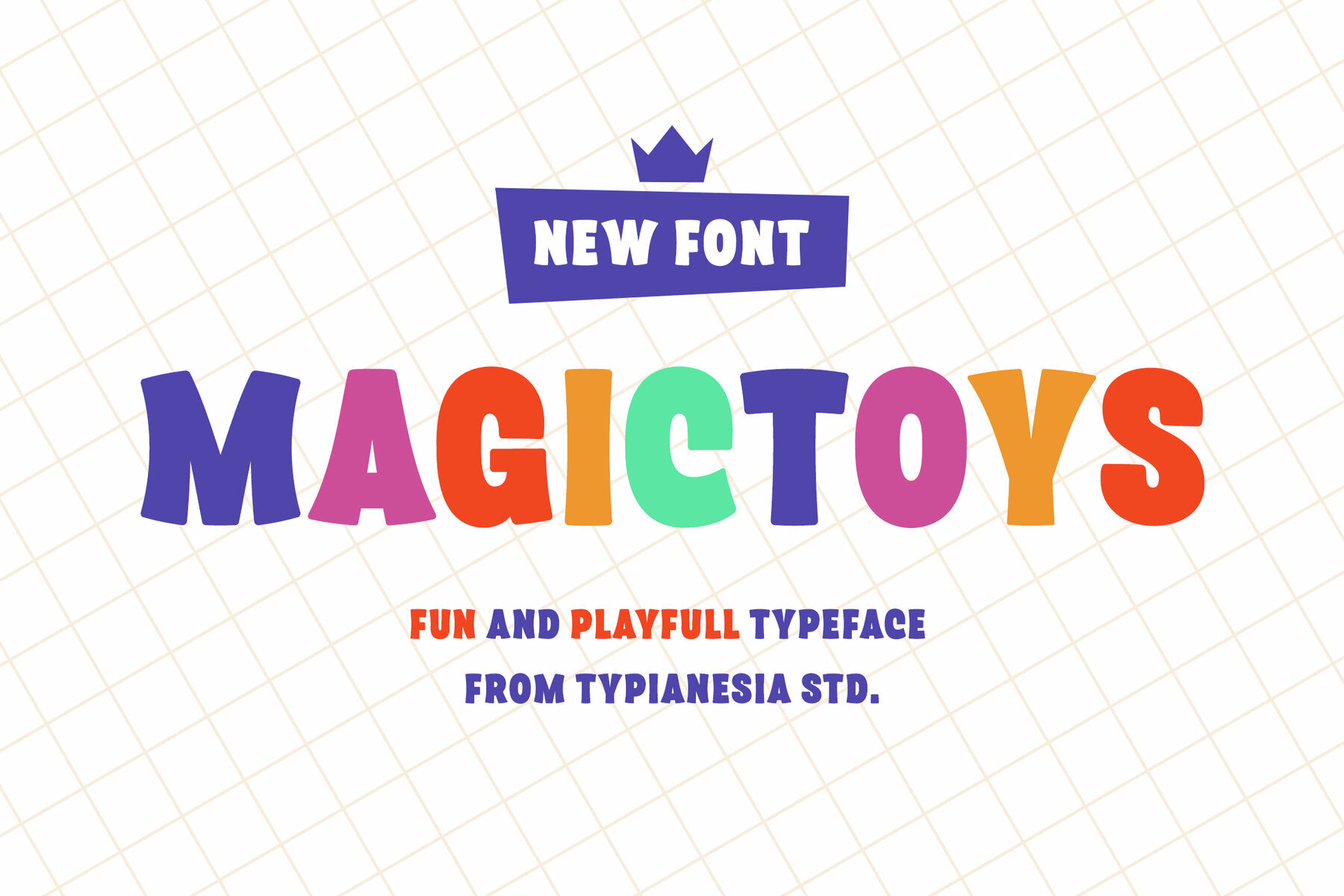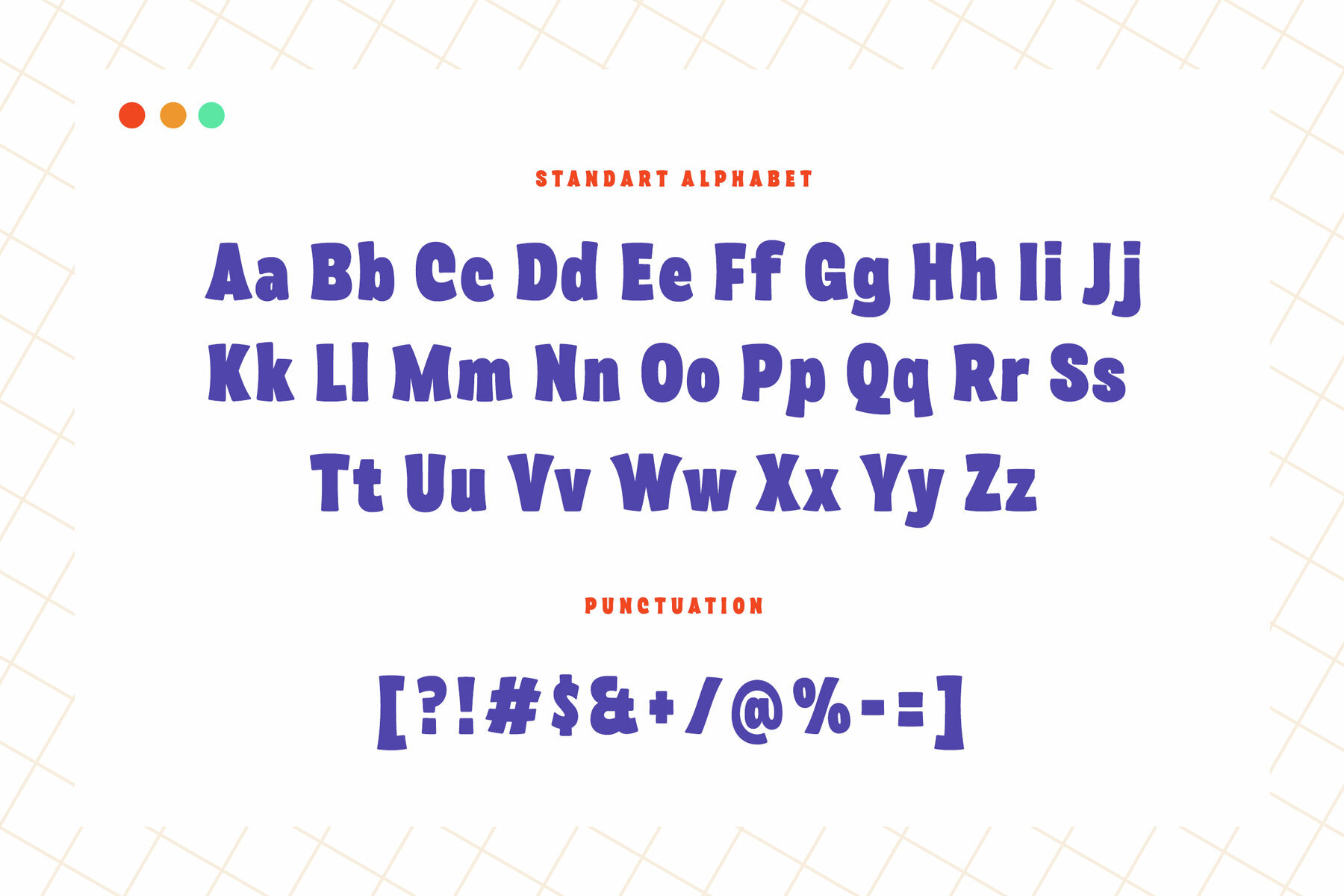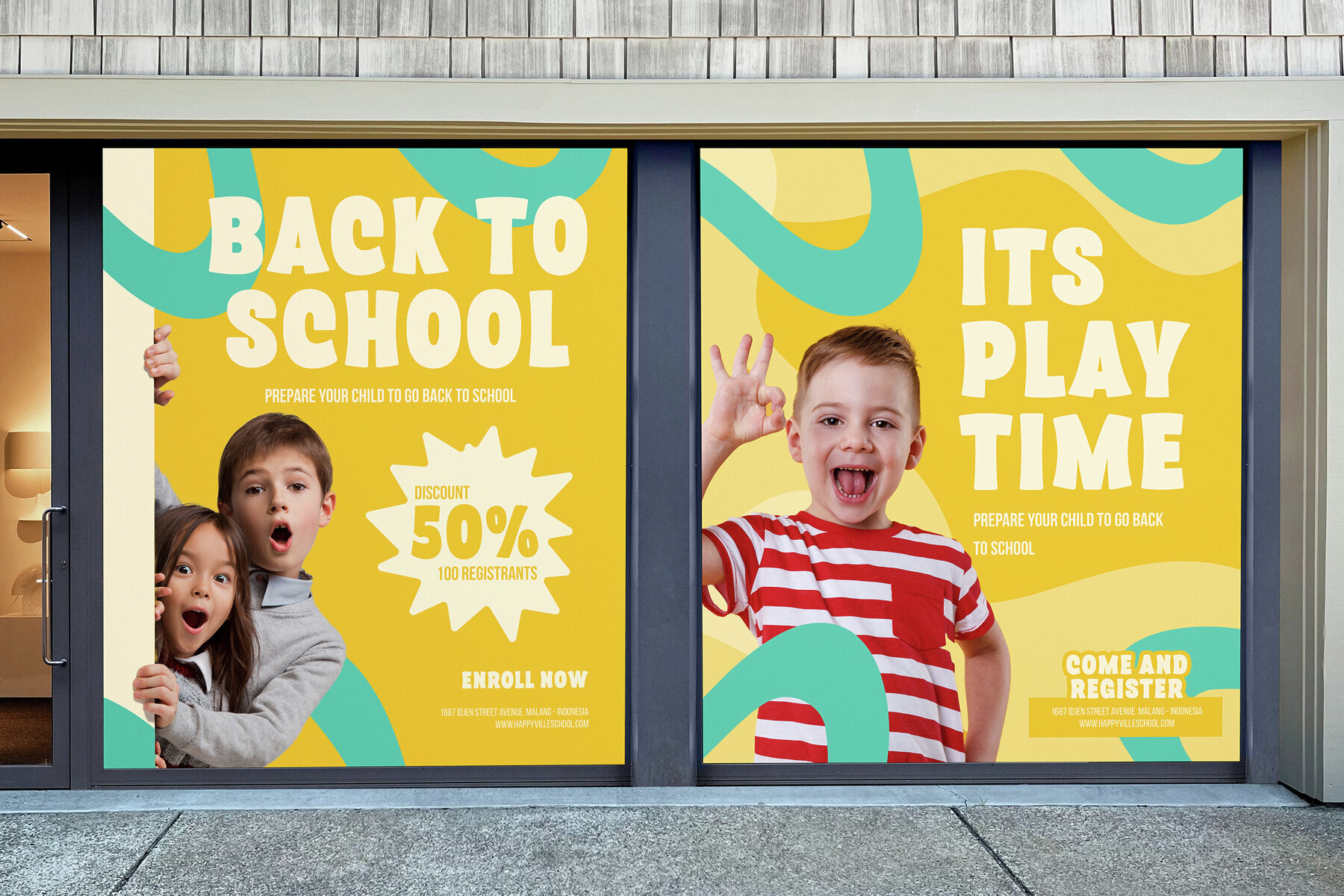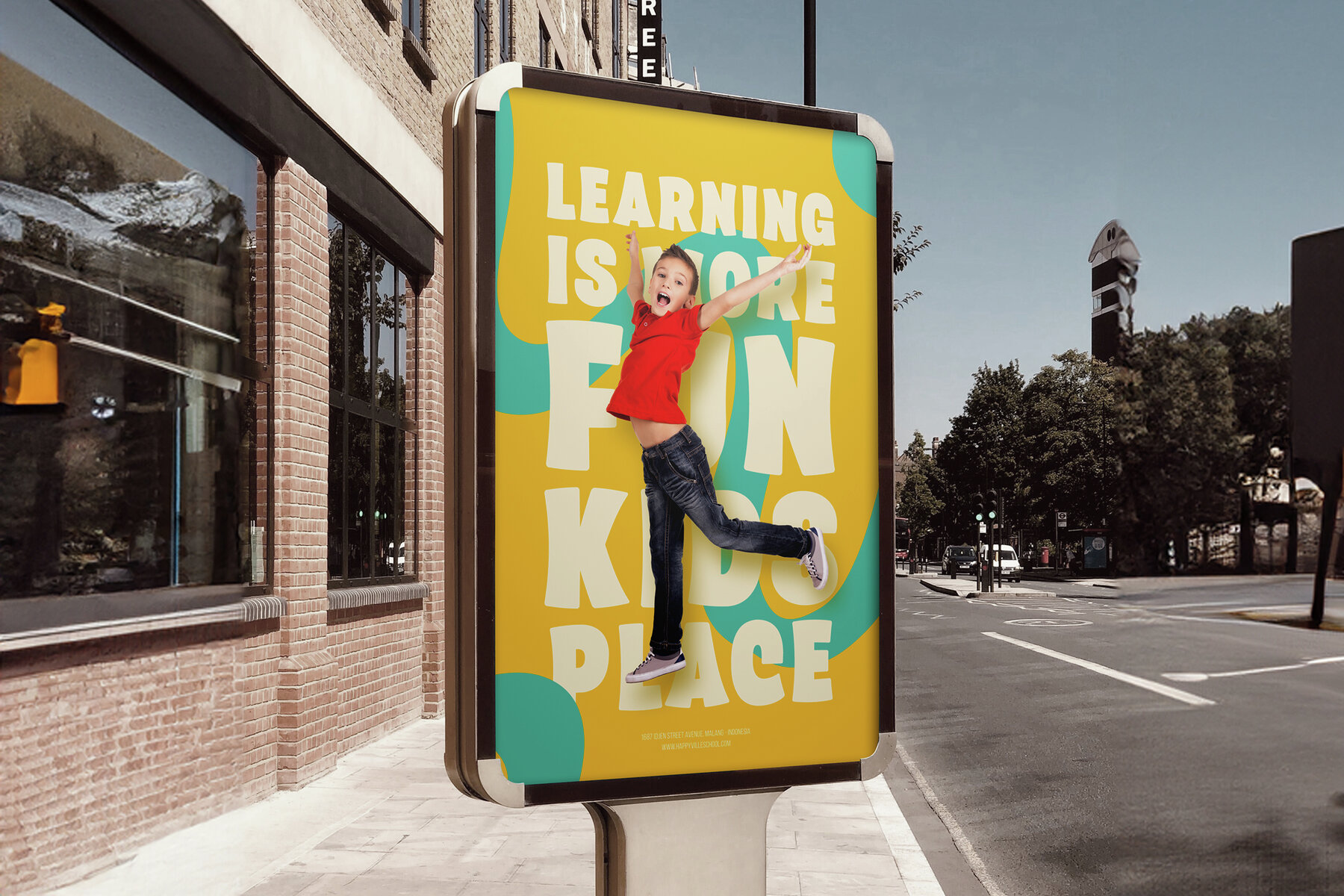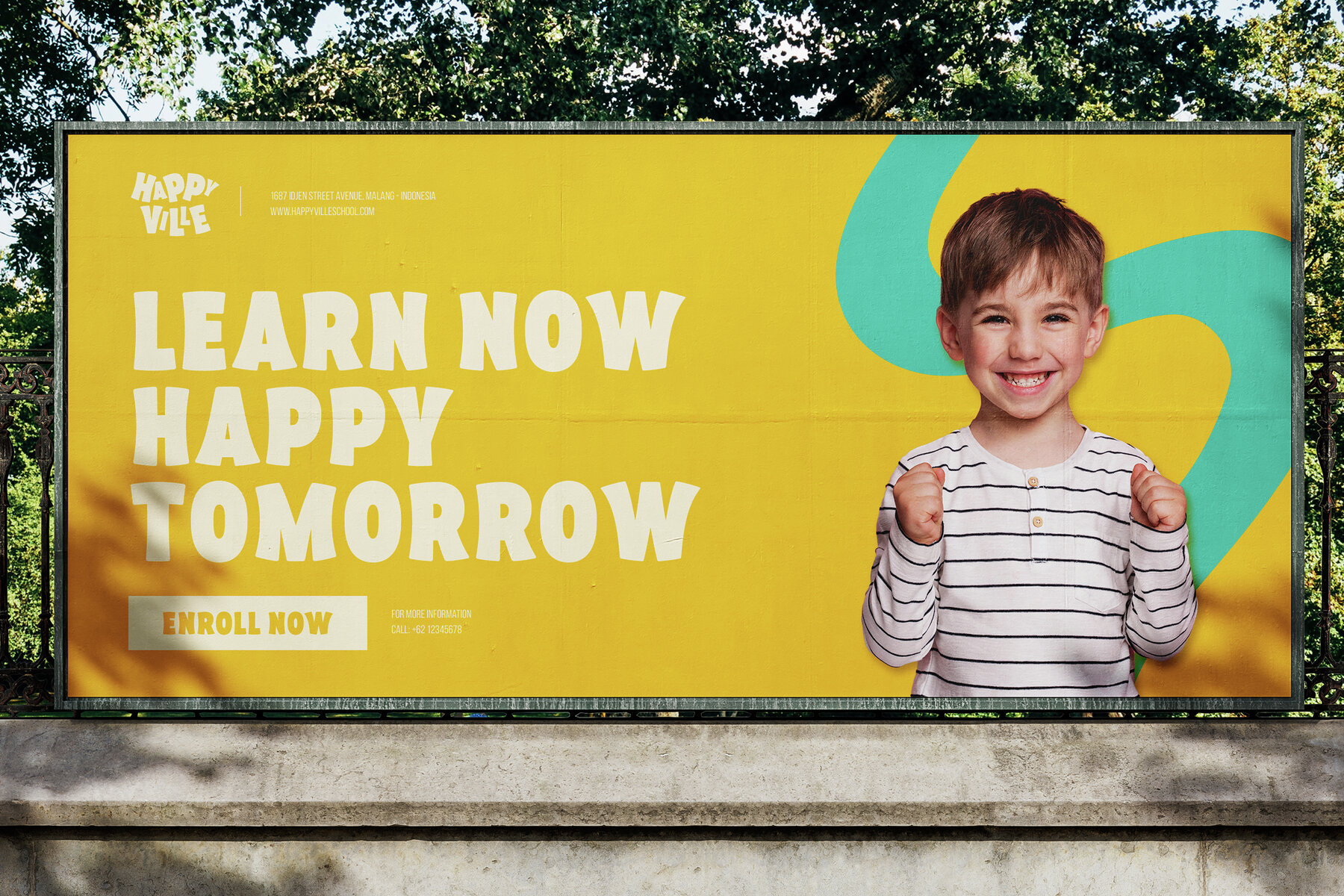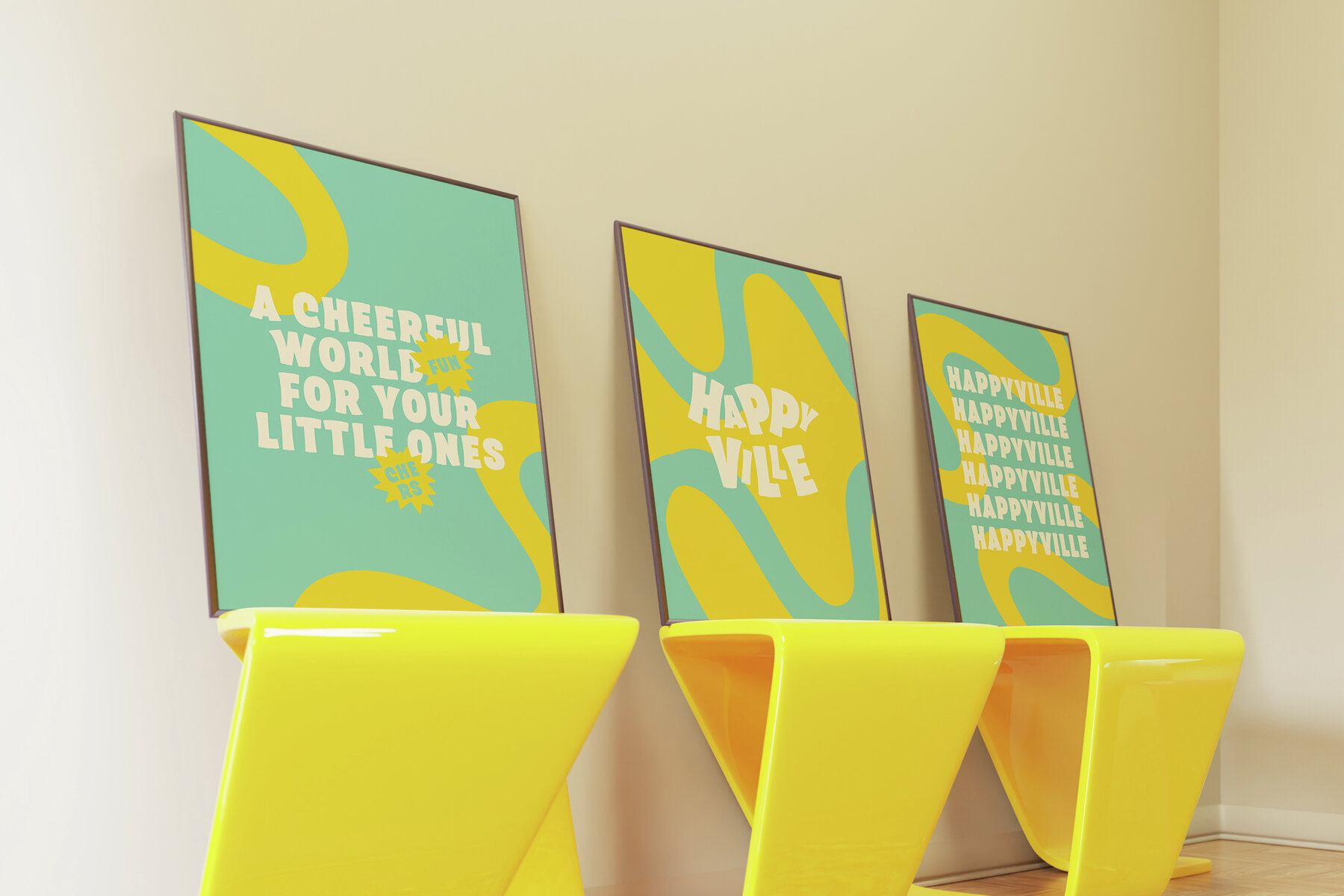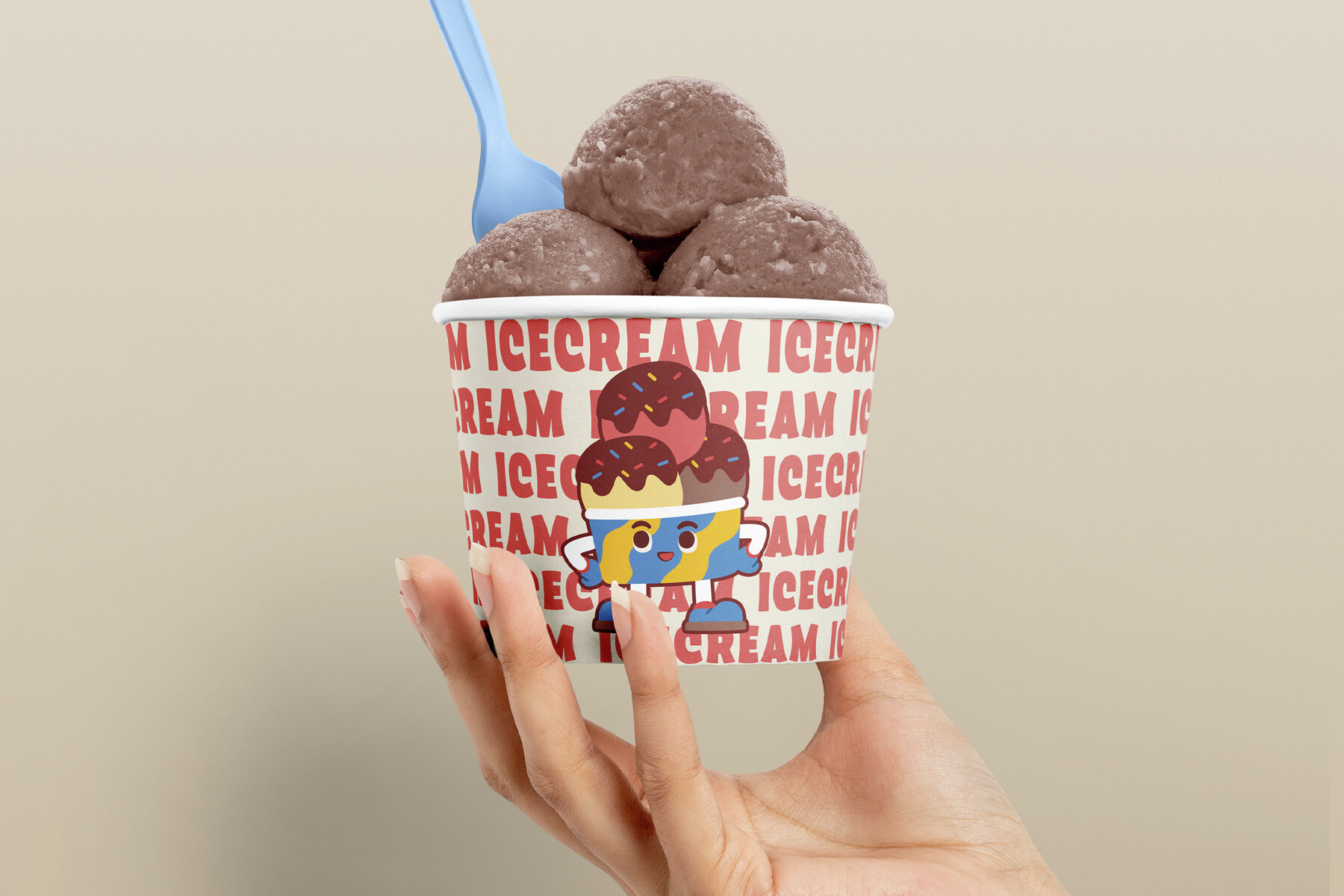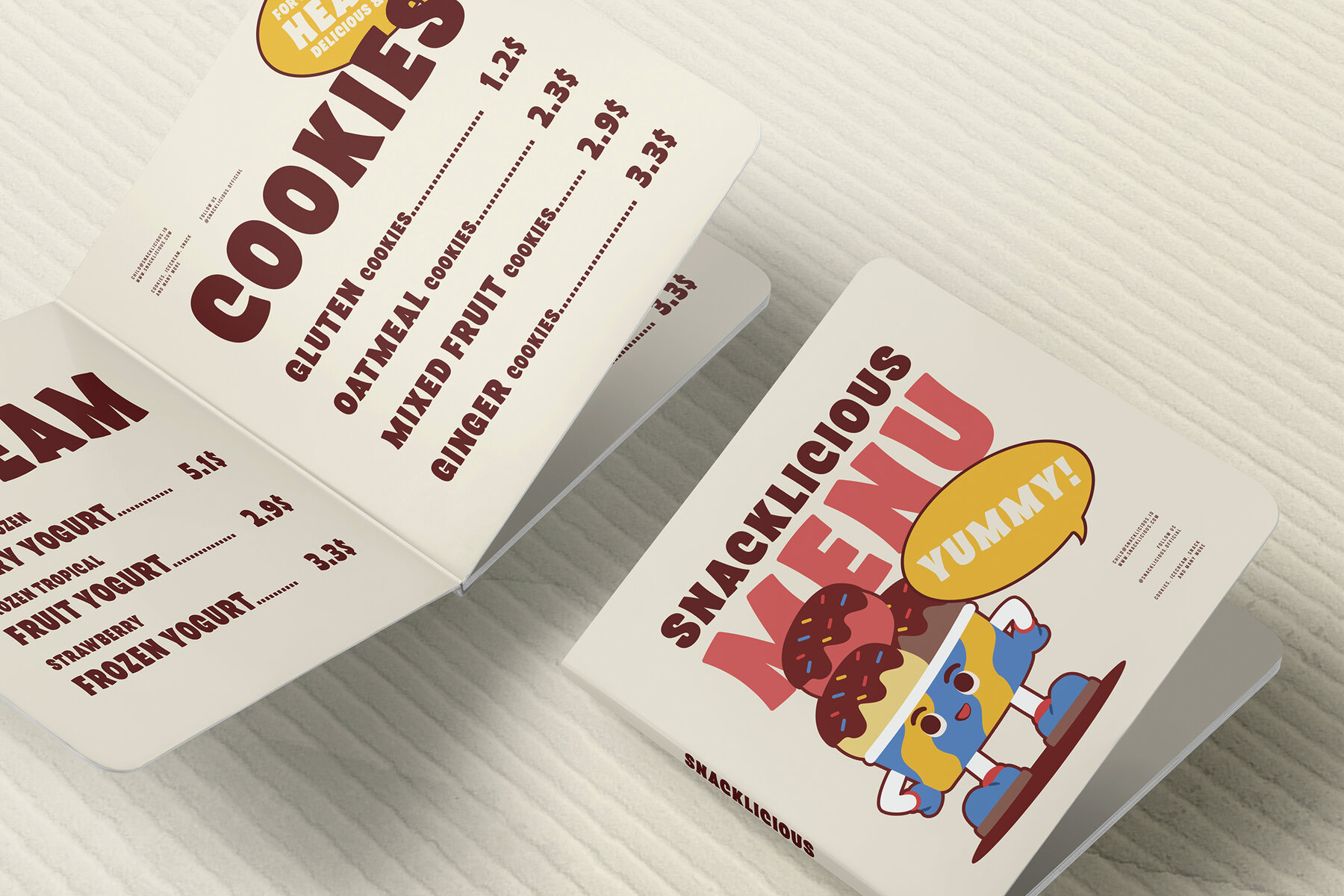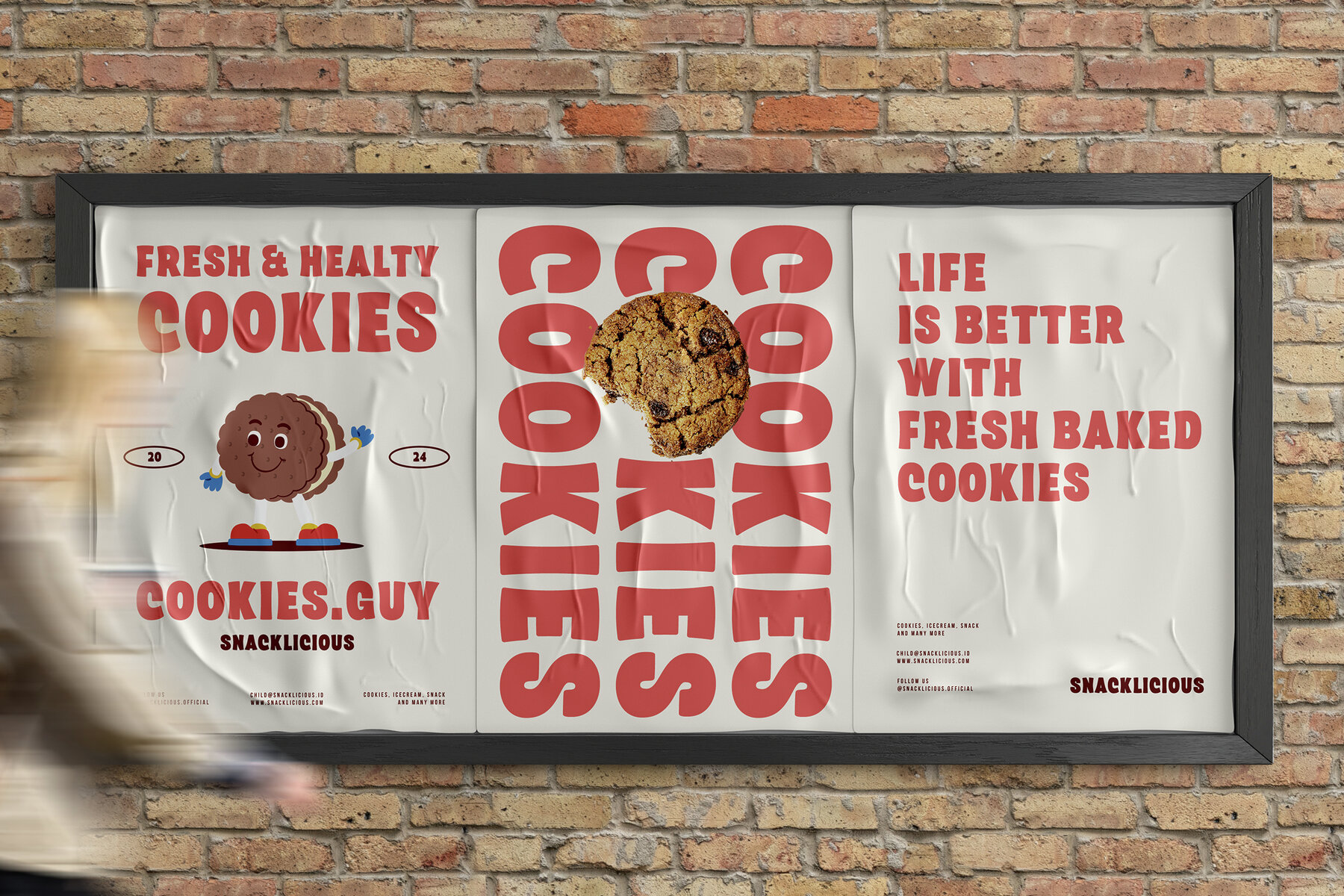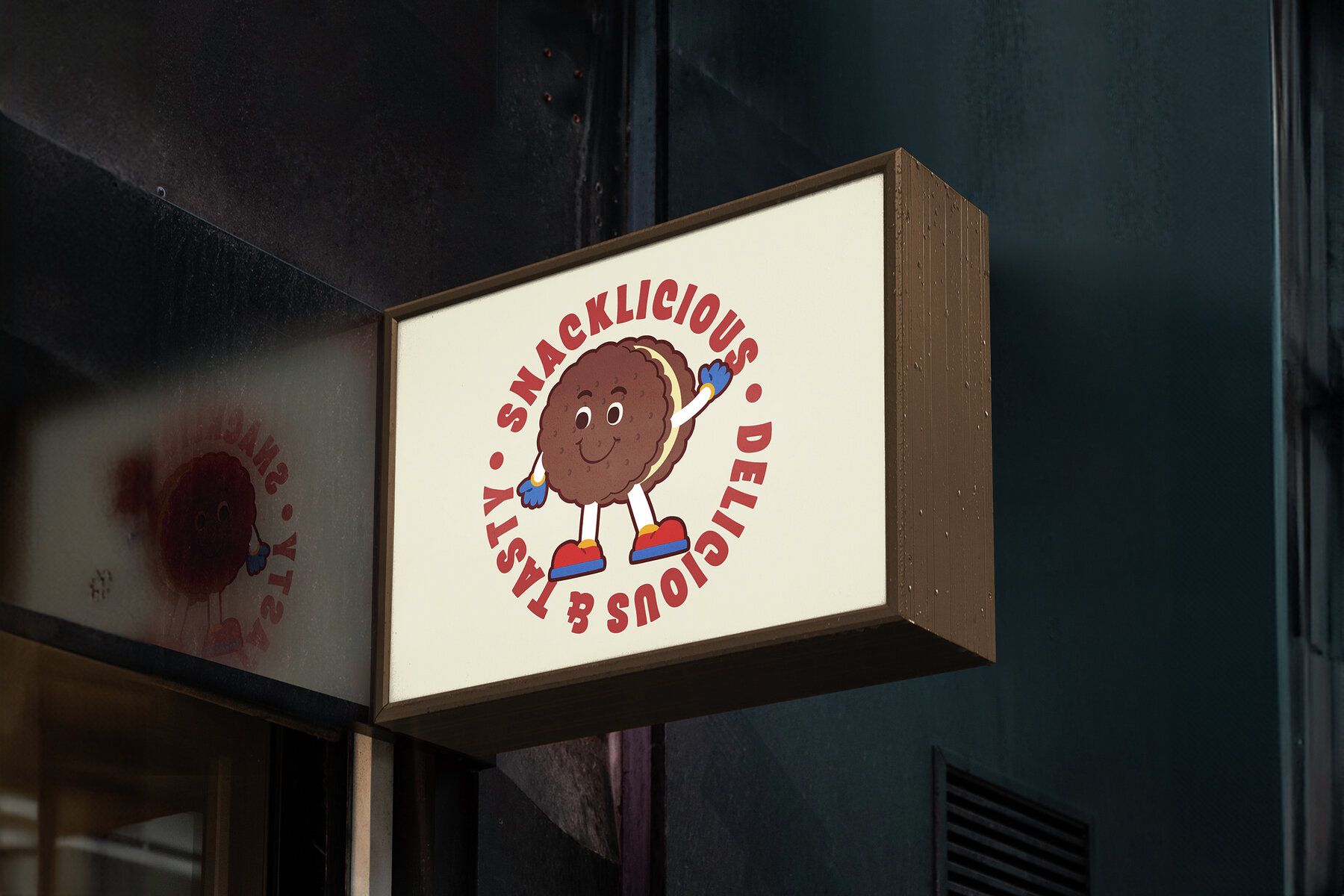
Magictoys Font
Magictoys Regular
Magictoys is a delightful Fun and Playful Typeface designed to bring joy and whimsy to your projects. Its charming and energetic style captures the essence of childhood imagination and playful creativity. Perfect for children's products and toys, children's books and publications, educational materials, event invitations and party decorations, carnivals and amusement parks, playgrounds and play areas, animated films and cartoons, use the font in title sequences, character names, and dialogue bubbles for animated films, cartoons, and animations aimed at children. You can also apply the font for Kids' apparel and accessories, toy Stores and specialty shops, school supplies and stationery, and digital games and apps for Kids. Magictoys infuses a sense of fun and excitement into any design. Its lively typeface adds character and warmth to various applications. Magictoys boasts ligatures and alternates to enhance the fluidity and diversity of its characters, allowing for creative expression and customization. With comprehensive support for uppercase and lowercase letters, punctuation marks, numerals, and multilingual characters, it caters to diverse design needs. Crafted with expertise in playful typography, Magictoys reflects a deep understanding of the playful elements that resonate with children and adults alike. It's Fun and Playful Typeface design embodies the spirit of joy and imagination.